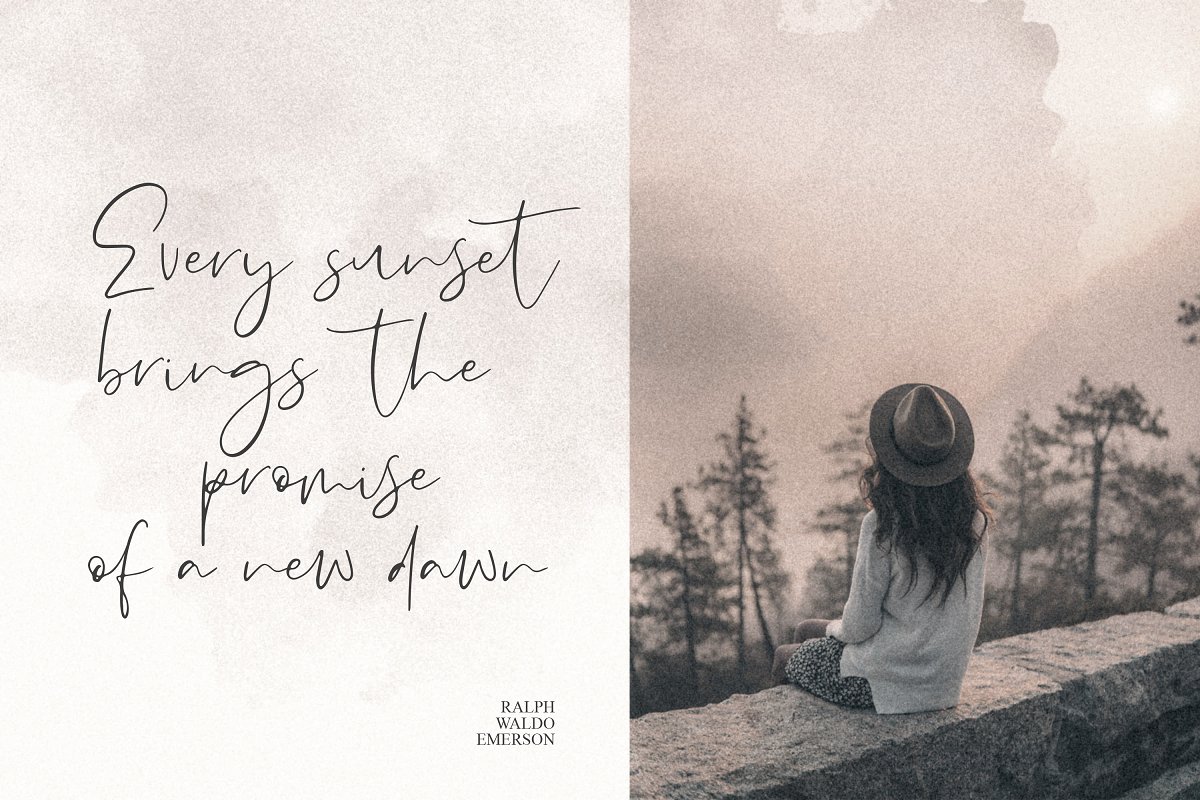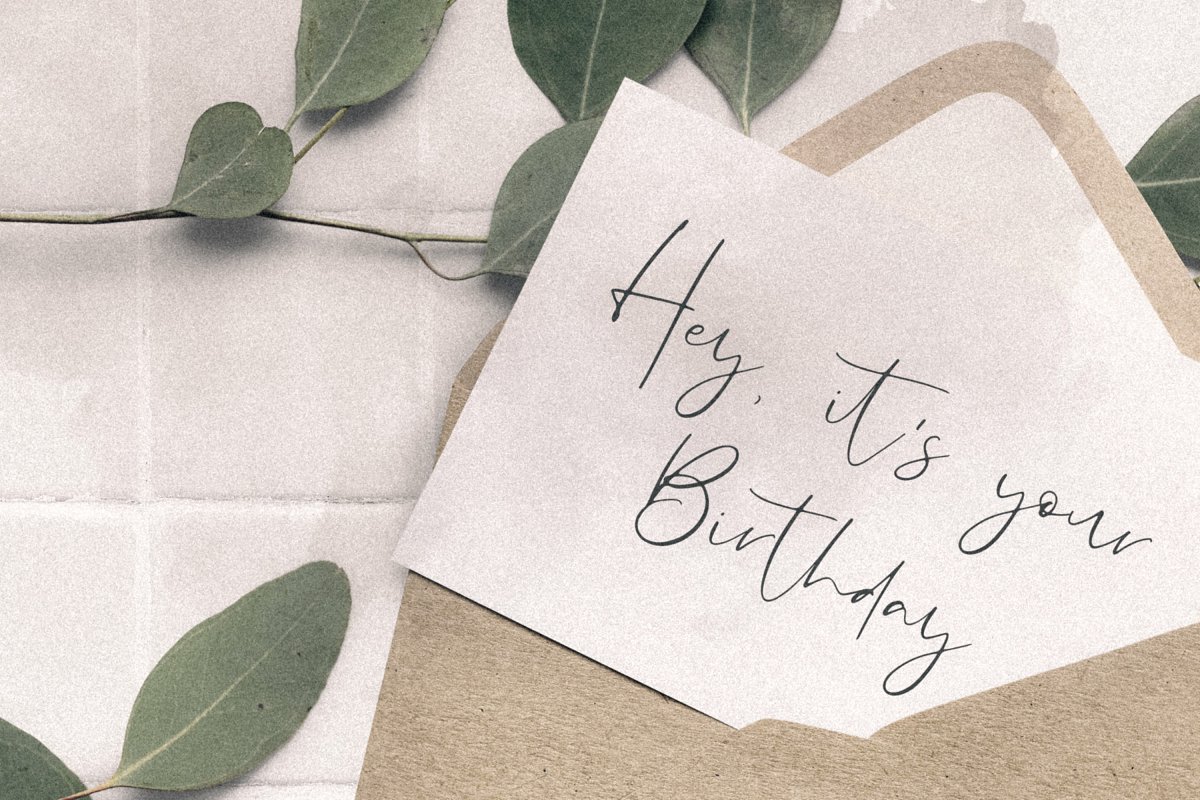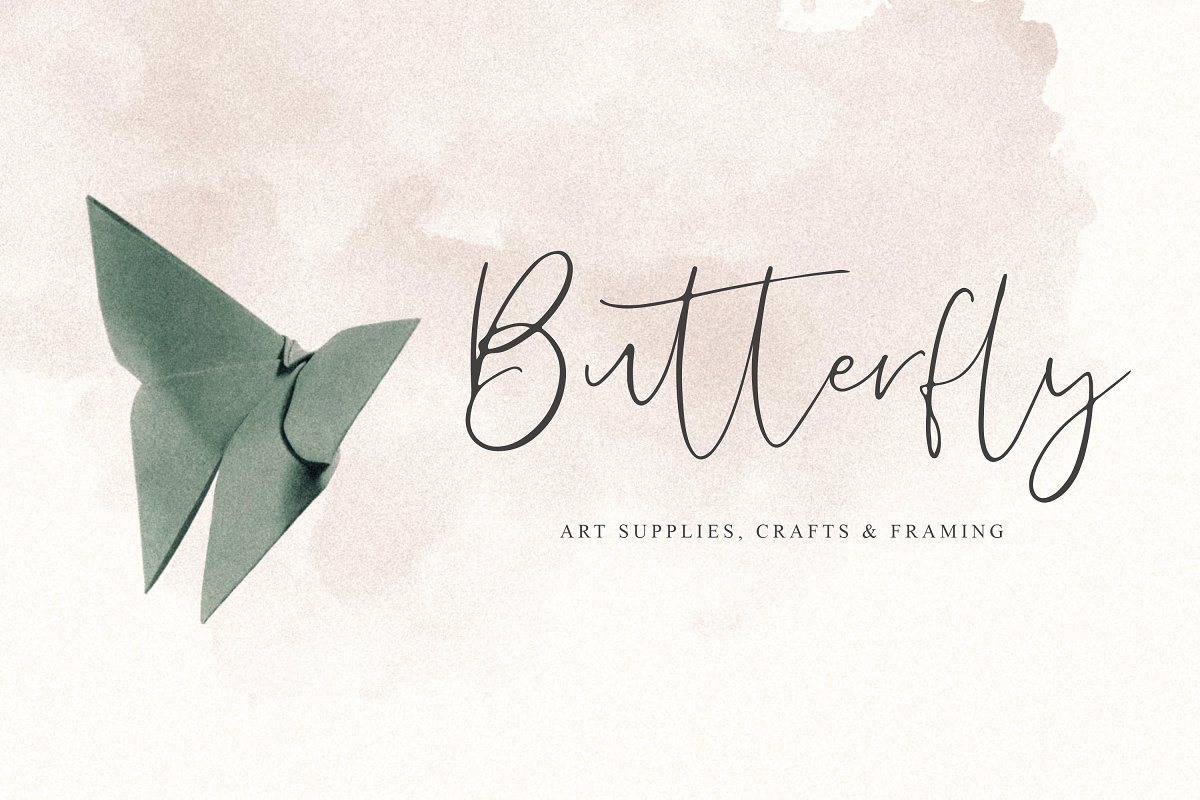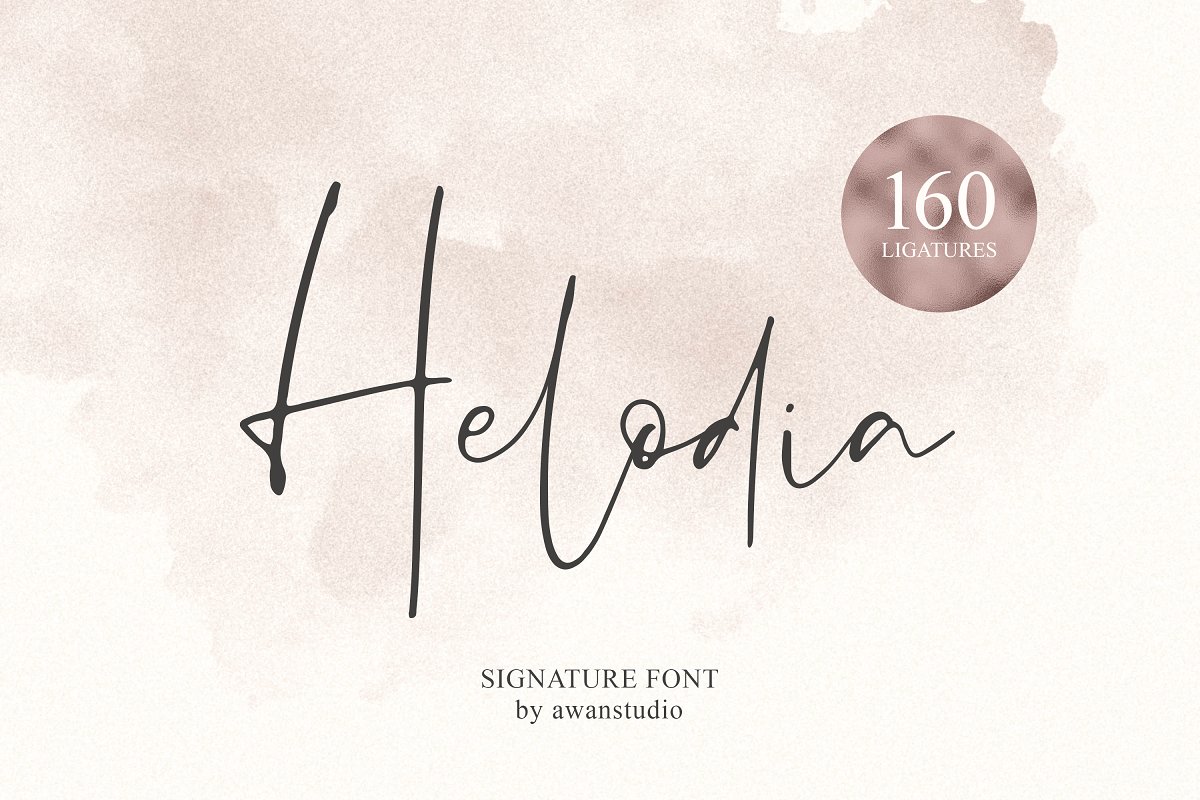
Helodia Signature Font
Introducing Helodia Font. A new fresh handmade signature typeface by awan studio. Helodia signature font! It allows you to create stunning and easy hand-lettering in an instant. Very suitable for greeting cards, branding materials, business cards, quotes, posters, and more!This font are perfect for wedding postcard. Or you can create perfect and unique design of your logo, blog, stationery, marketing, magazines and more:)